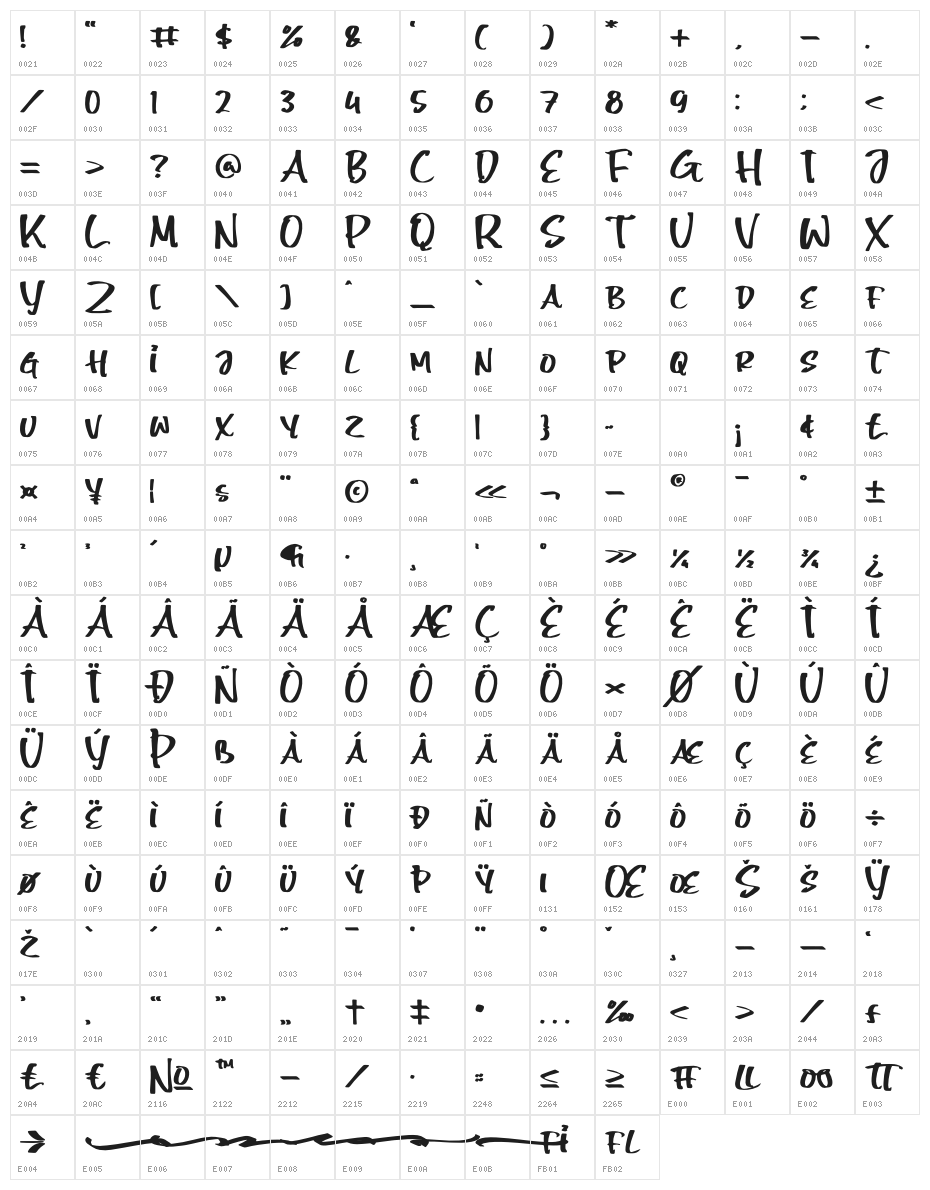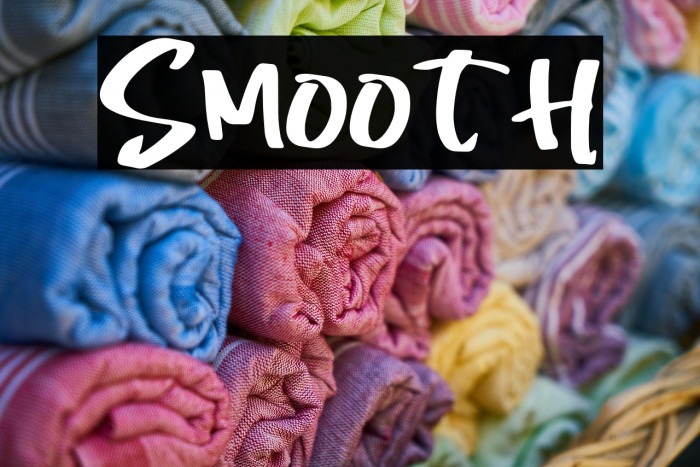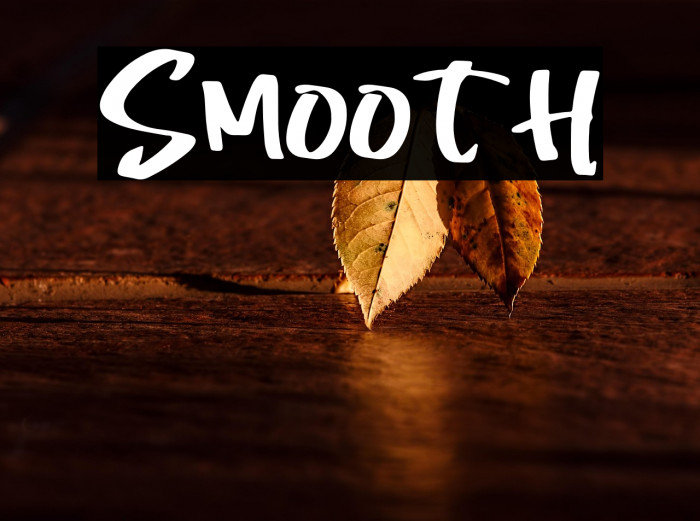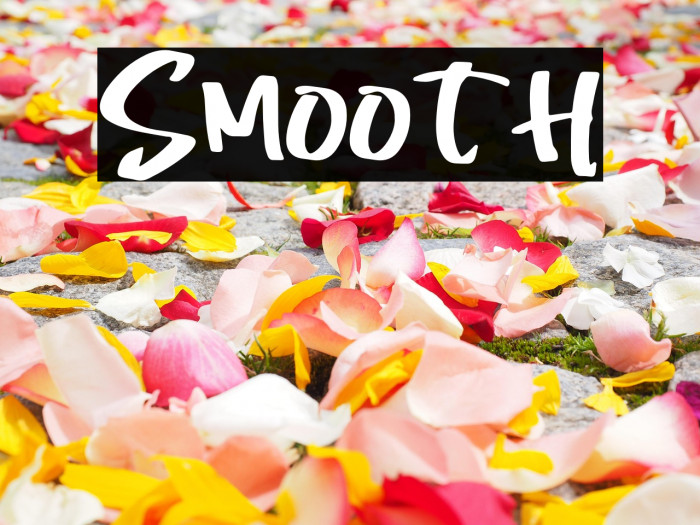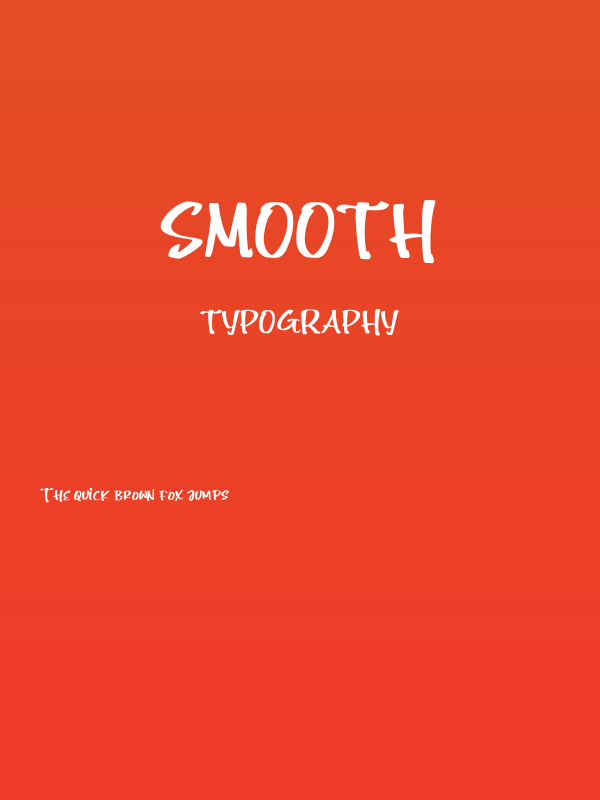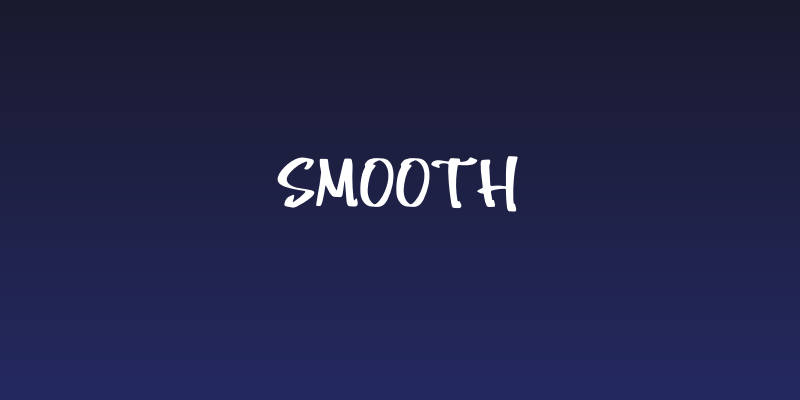
Smooth Font
Smooth Description
This font exhibits a bold and expressive handwritten style, characterized by its fluid and dynamic strokes. The letters are crafted with a sense of movement, giving them an energetic and lively appearance. The uppercase and lowercase letters maintain a consistent style, with slightly exaggerated curves and angles that add to the font's unique personality. The numbers and special characters are designed to match the overall aesthetic, ensuring a cohesive look across all text elements. This font's playful yet sophisticated design makes it suitable for a variety of creative applications.
| Proposed Projects | Ideal for branding projects, invitations, greeting cards, posters, and social media graphics. |